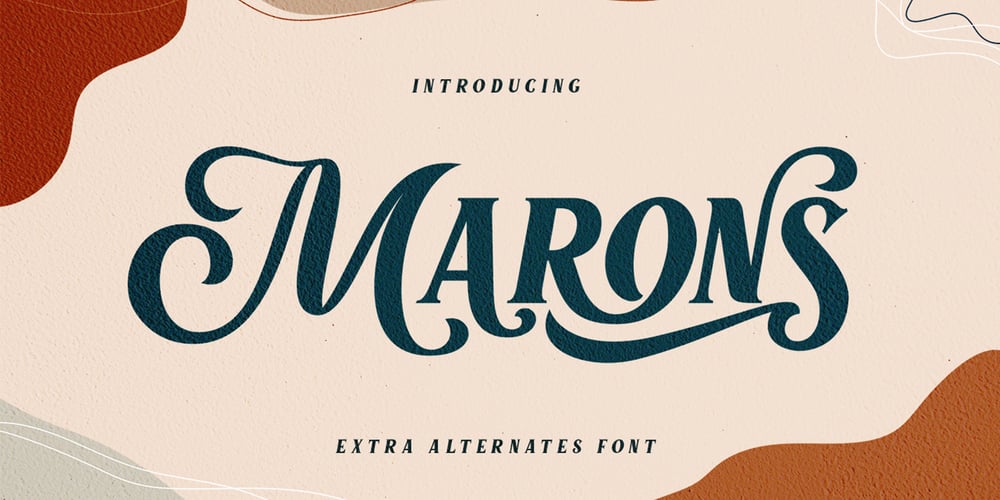
Marons Font Family was designed by Alit Suarnegara and published by Alit Design. Marons contains 1 styles and family package options. Marons is my first font release of 2020. I created Marons from the initial sketch to the digital process and until it was released it took less than 2 months after I launched Black Quality. Marons is an elegant font that I combined from script and serif fonts, thus creating a unique and bold impression. Each Marons letter also has an additional alternate glyph and many variations of swash options, so you can use this font to create logo designs, header texts, t-shirt designs, YouTube cover texts, wedding designs, and others. With its many glyphs, Marons is indeed worthy of being called a collection of fonts in early 2020.